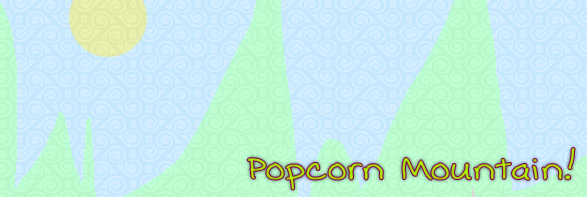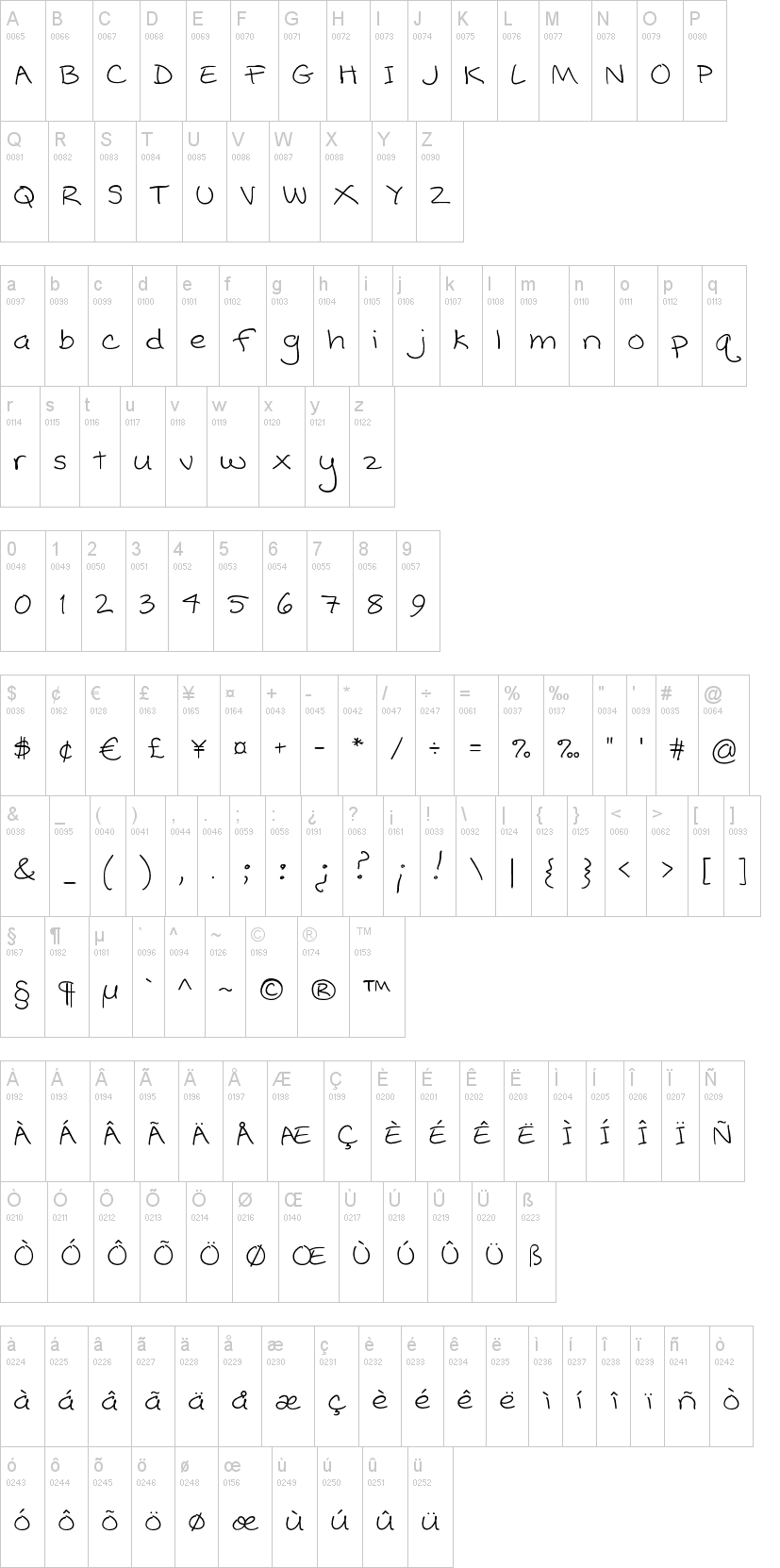
Popcorn_Mountain--Standard_Thin.otfPopcorn_Mountain--Condensed.otfPopcorn_Mountain--Condensed_Thin.otfNote of the author"Popcorn Mountain!" is a handwritten, opentype font that utilizes opentype features in an effort to appear more realistic. The font includes accented letterforms, math symbols, custom kerning, contextual alternatives and ligatures for many common letter combinations, and other stuff I guess.